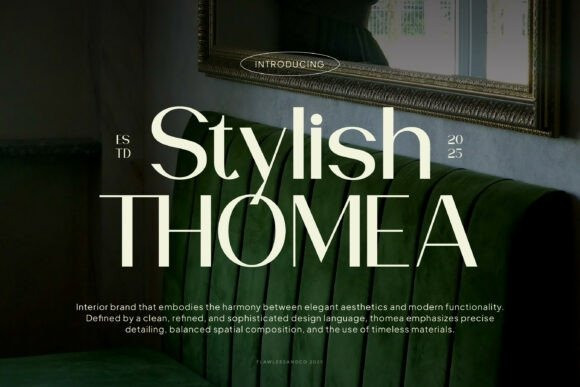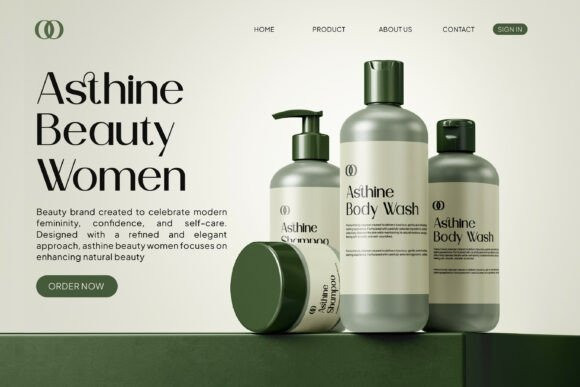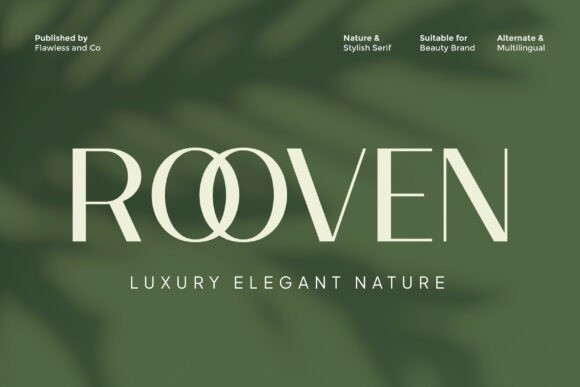
Rooven Font
Rooven Font is an elegant serif font crafted to express luxury, refinement, and natural beauty. With its stylish letterforms and balanced proportions, Rooven delivers a sophisticated look that feels timeless yet modern. This font is designed to elevate visual identities with a calm, premium, and graceful character.